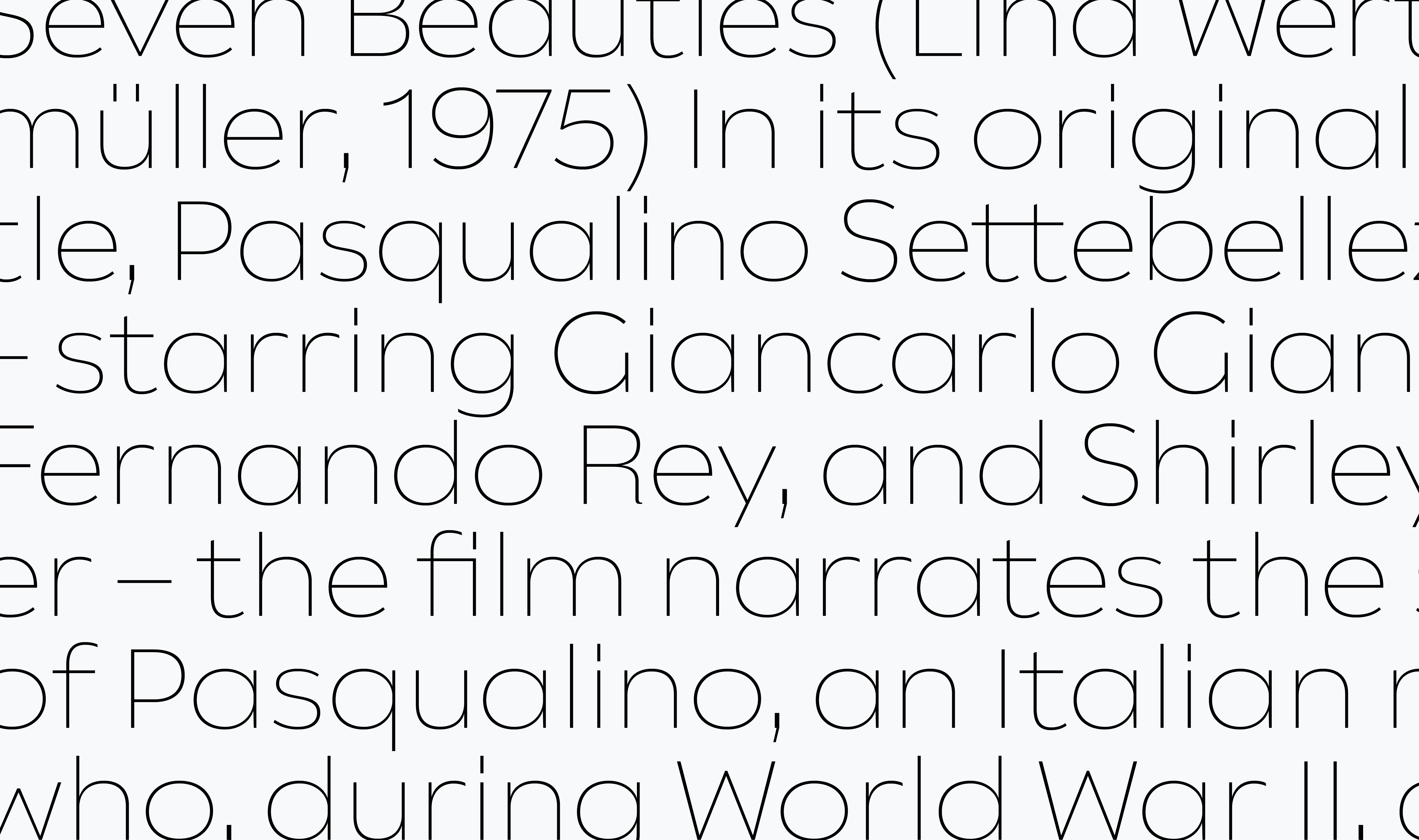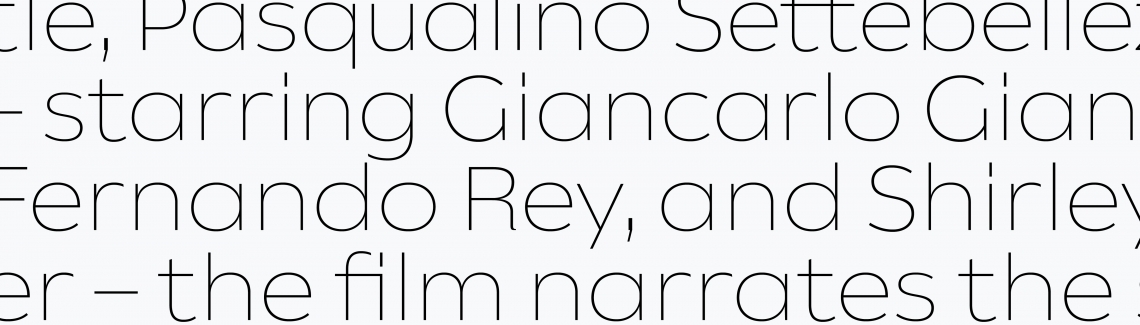
Catalpa in motion
Catalpa was made to be an overwhelming headliner, like the quirky and hulking wood type that inspired it. With only four thin and four heavy weights, being a display family is its single-minded purpose.
Catalpa has only eight styles that are divided into two ranges of weights — four very light weights (Hairline, Thin, Extralight, and Light ) and four very bold ones (Extrabold, Heavy, Black, and Extrablack). The thin and heavy ends of the spectrum also have their own variable fonts, each with one axis of weight so designers can fine-tune their work. The geometric influence of the design is more obvious in the light range, with their line thickness increasing in the classical manner. The bold weights increase more in width and substance to serve well in websites, mobile apps, posters, advertisements, and magazines that aim for impact more than spreading information.